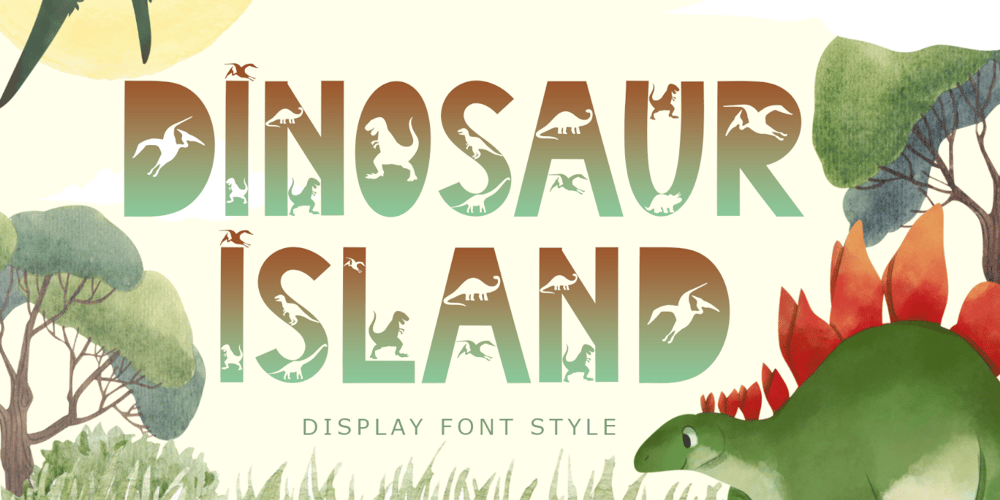
Dinosaur Island Font Family was designed by Isroni Yoga Prasetya and published by Yoga Letter. Dinosaur Island contains 1 styles and family package options. “Dinosaur Island” is a cute display font with dino decorations on each letter. Equipped with uppercase letters, lowercase letters, ligatures, numerals, punctuations and multilingual support. Very suitable for comics, film titles, book titles, birthday greetings, logos, banners, branding and others.